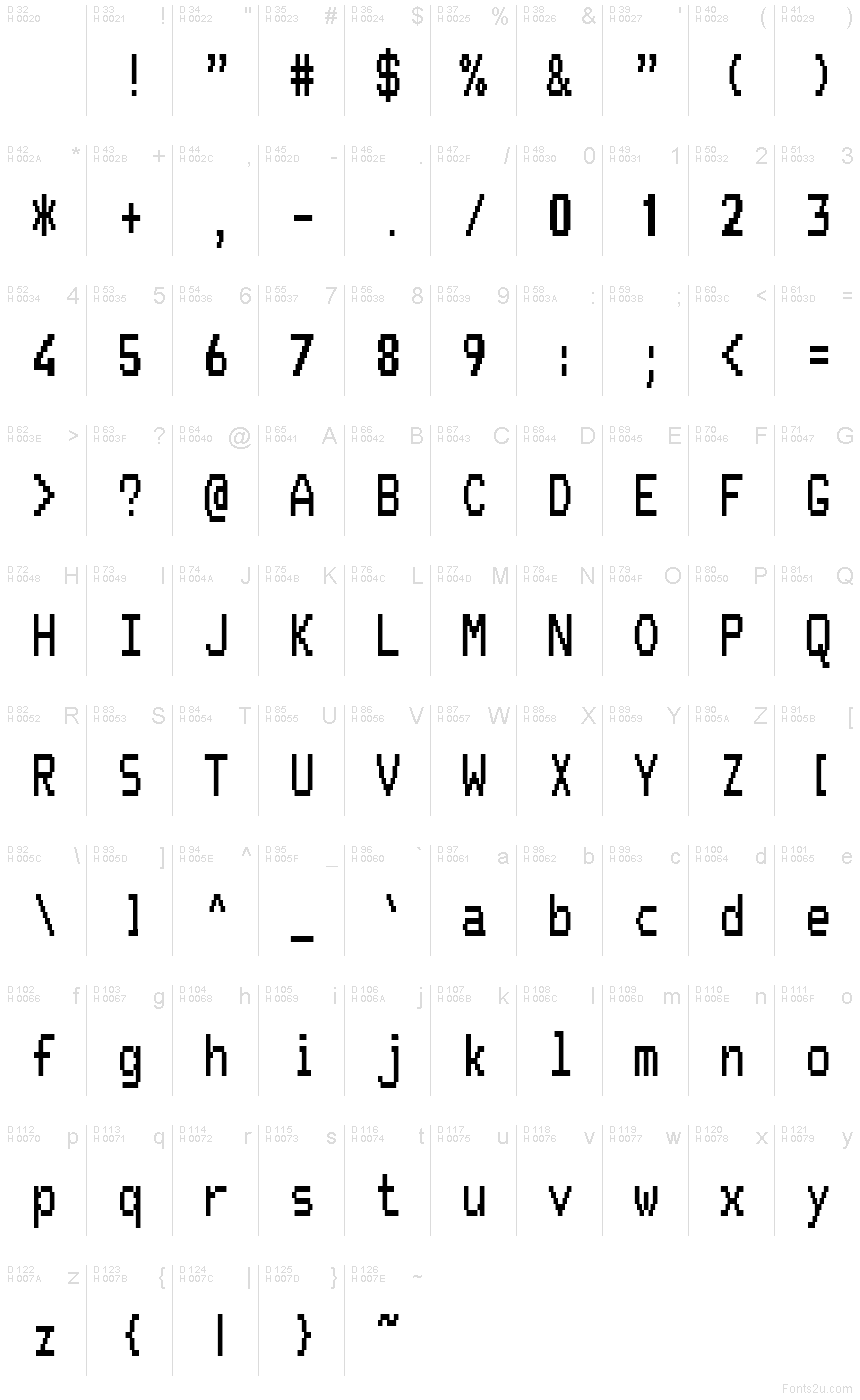
TDATextCondensed
TDAText Condensed font by Dmitry Tretyakov stands out with its pixelated, geometric design style. The bitmap font's condensed width gives it a digital aesthetic, while the minimalist, grid-based structure reinforces its tech-inspired retro look. Thanks to its unique and one-of-a-kind appearance, it can become an instant attention grabber in different uses.